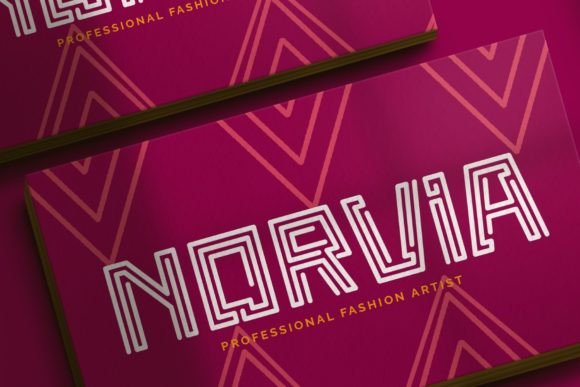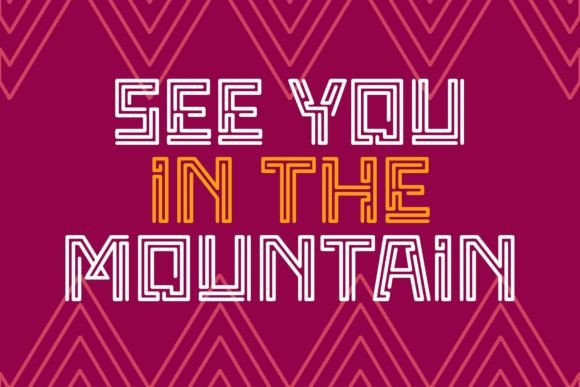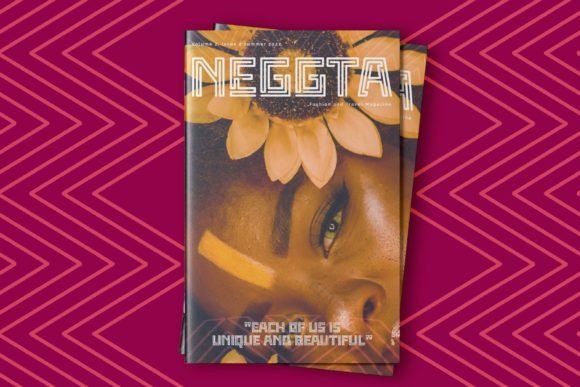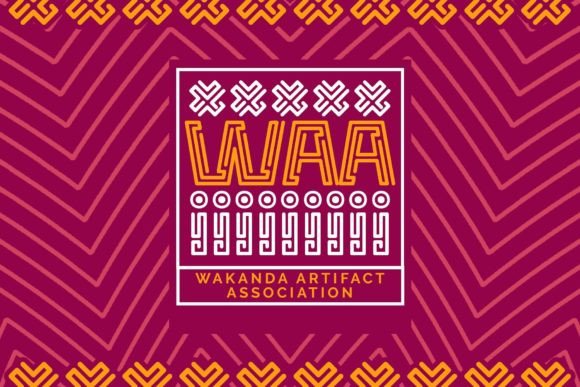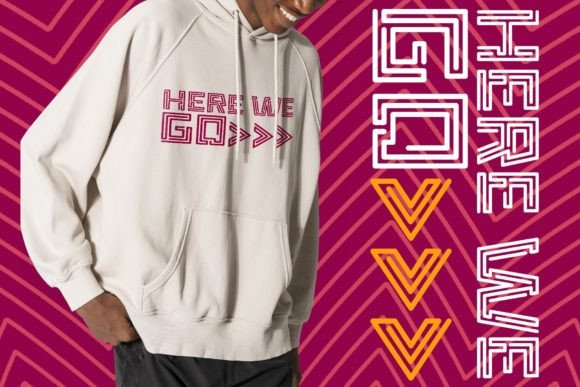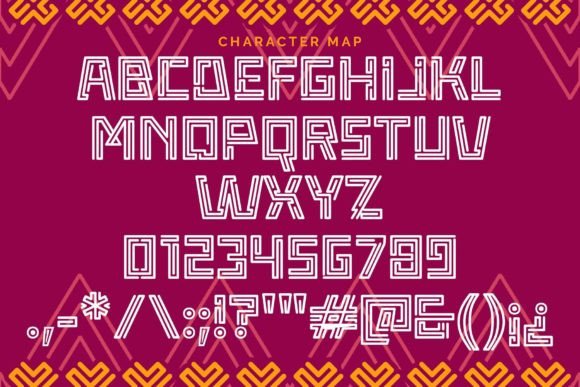
Introduction to Mornad Font Font
Fonts play a crucial role in design, and the Mornad Font font is a typeface that brings both character and versatility to any project. Whether you’re working on a branding project, a website, or a print design, the Mornad Font font offers a unique style that can elevate your work.
Mornad is a modern line decorative sans serif font.
Masterfully designed to become a true favorite, this font has the potential to bring each of your creative ideas to the highest level .
The Mornad Font font is more than just a typeface – it’s a design tool that helps you communicate your message with style and clarity. Its unique character set and versatile design make it suitable for a wide range of applications, from elegant invitations to bold headlines.
With its carefully crafted letterforms and balanced proportions, the Mornad Font font ensures readability and visual appeal across all mediums.
The Mornad Font font stands out with its unique design, exceptional readability, and versatility across various design applications.